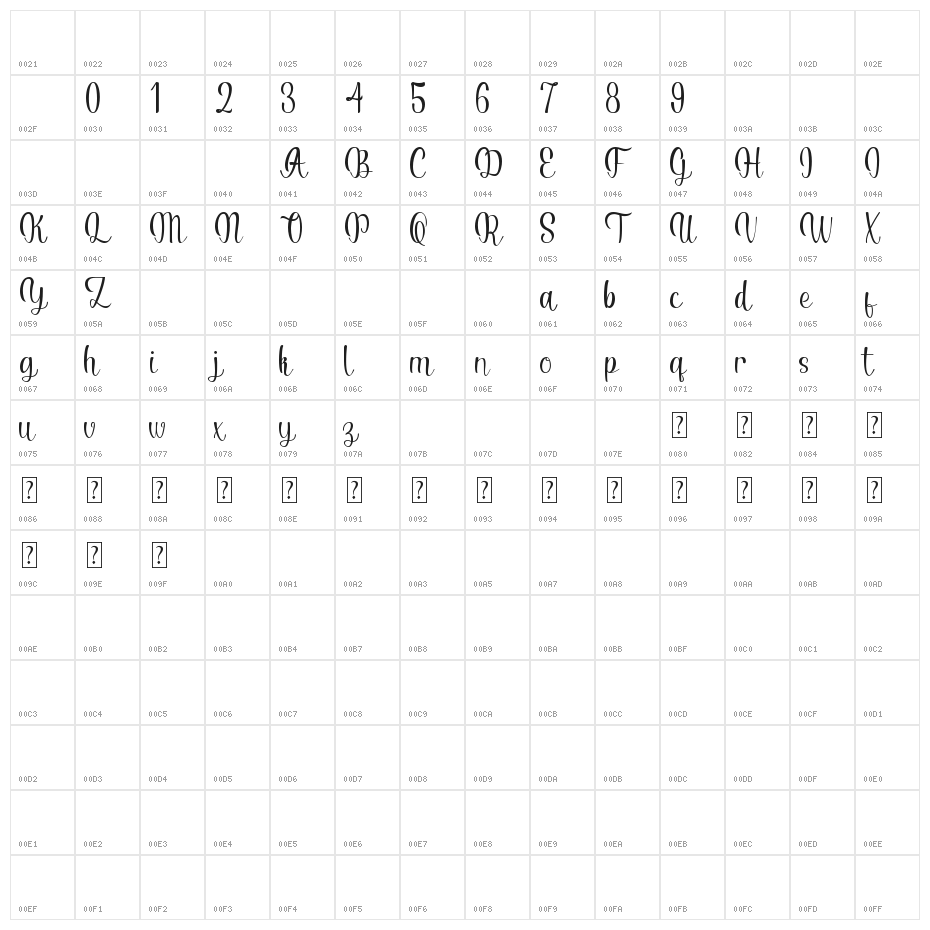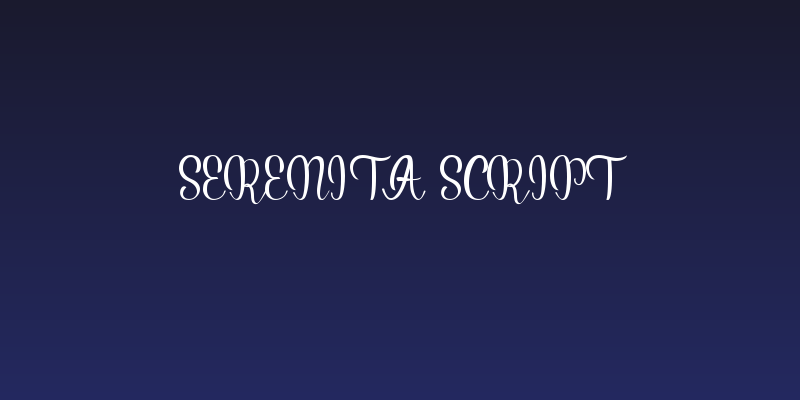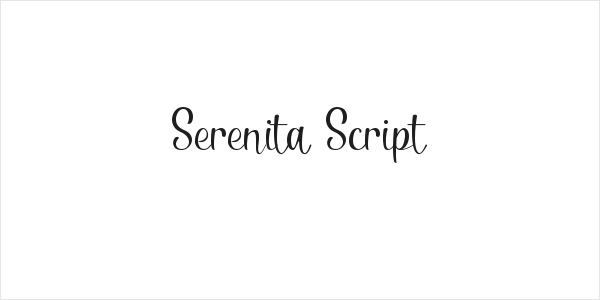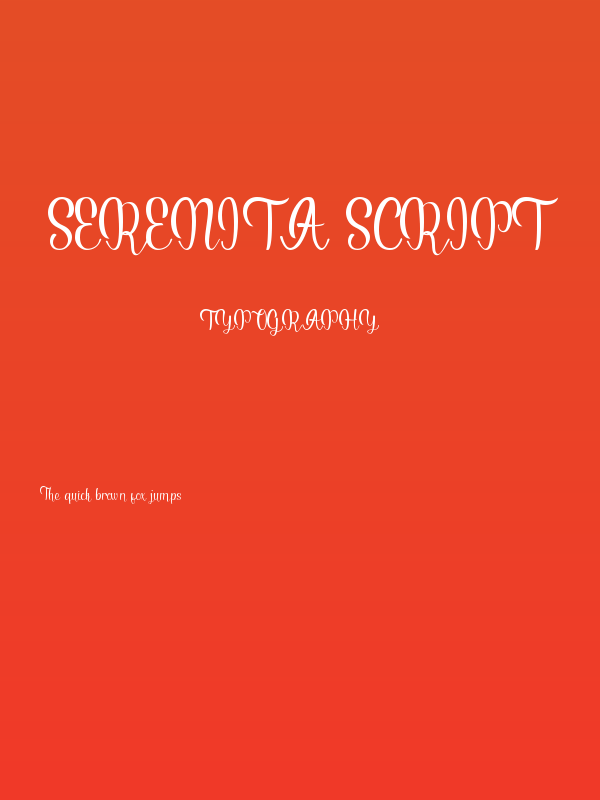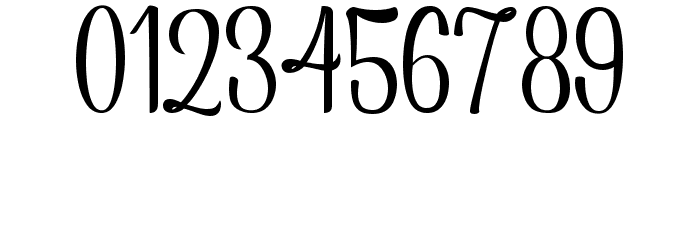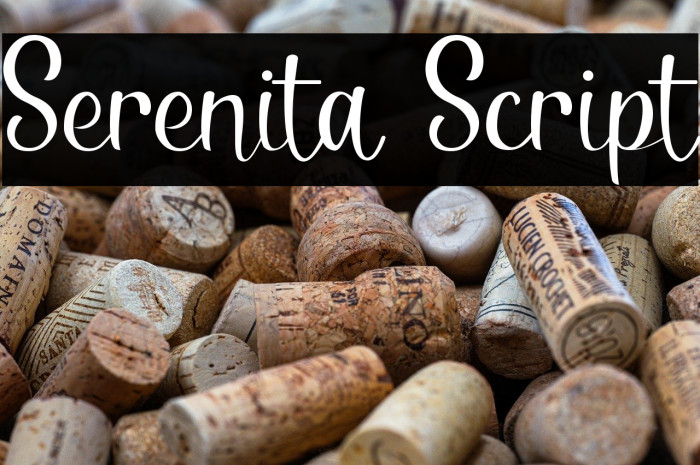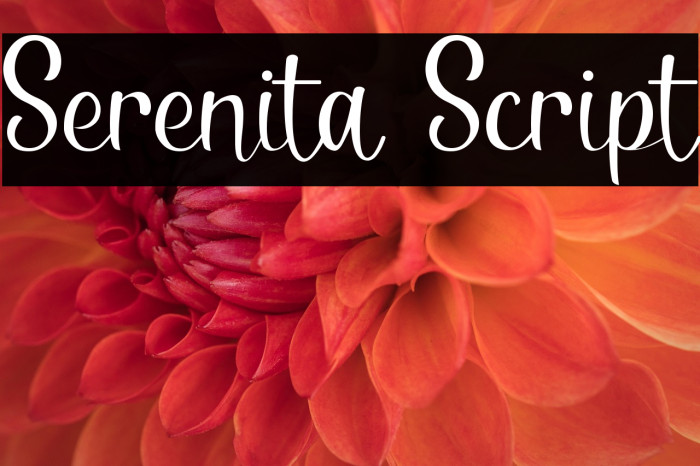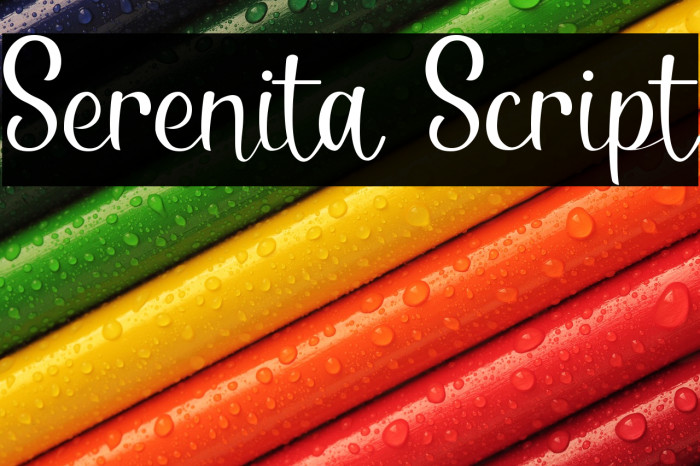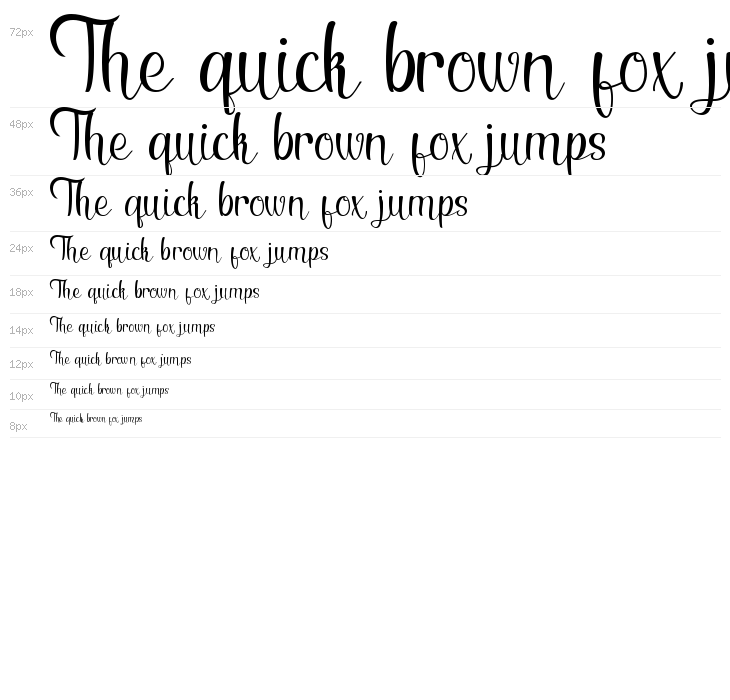
Serenita Script Font
Serenita Script Description
This elegant script font features a flowing, cursive style with smooth, rounded edges and graceful loops. The uppercase letters are ornate and decorative, while the lowercase letters maintain a consistent fluidity, making it ideal for creating a sophisticated and artistic look. The numerals are equally stylish, with a harmonious blend of curves and lines that complement the overall aesthetic. This font exudes a sense of elegance and charm, perfect for projects that require a touch of refinement and beauty.
| Overall Style | Elegant, Artistic |
| Proposed Projects | Ideal for wedding invitations, greeting cards, branding, and elegant packaging. |